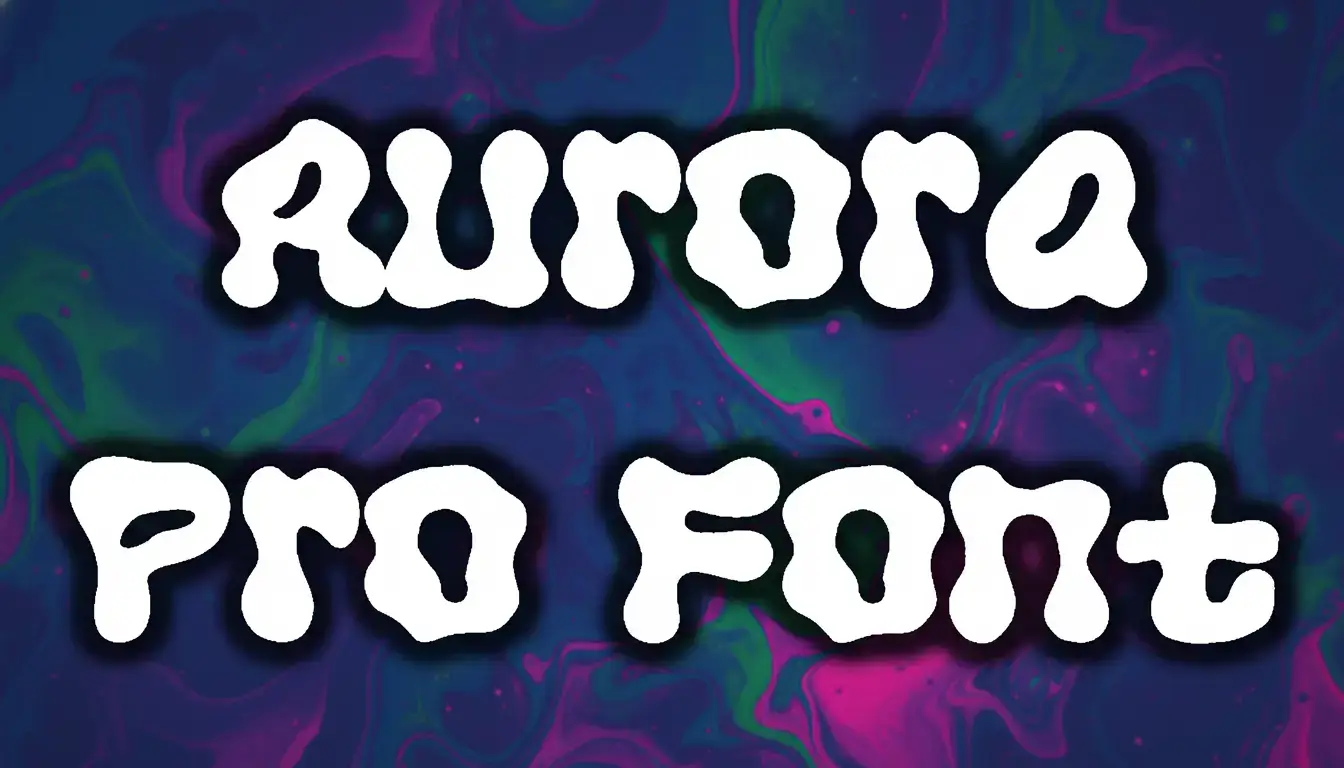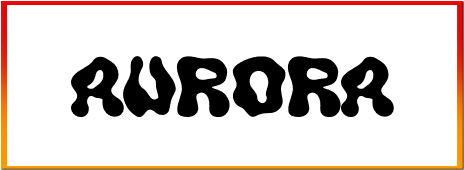
Aurora Pro Font
Aurora Pro is a fancy font made by Moon Young URC. It's a decorative display font with plenty of personality, made to grab attention. It's a free download, and you can try it with your own text in the preview above first.
What You Can Type With Aurora Pro
With complete upper and lowercase letters and all ten digits, Aurora Pro is ready for real wording, not just a single headline. Everyday marks like &, !, ? and @ are there too. There are no accented letters like é or ñ, so it's best kept to English text.
Where Aurora Pro Works Best
Think of Aurora Pro for posters, logos and eye-catching headlines. Use it for one standout word or headline and let simpler fonts handle the rest.